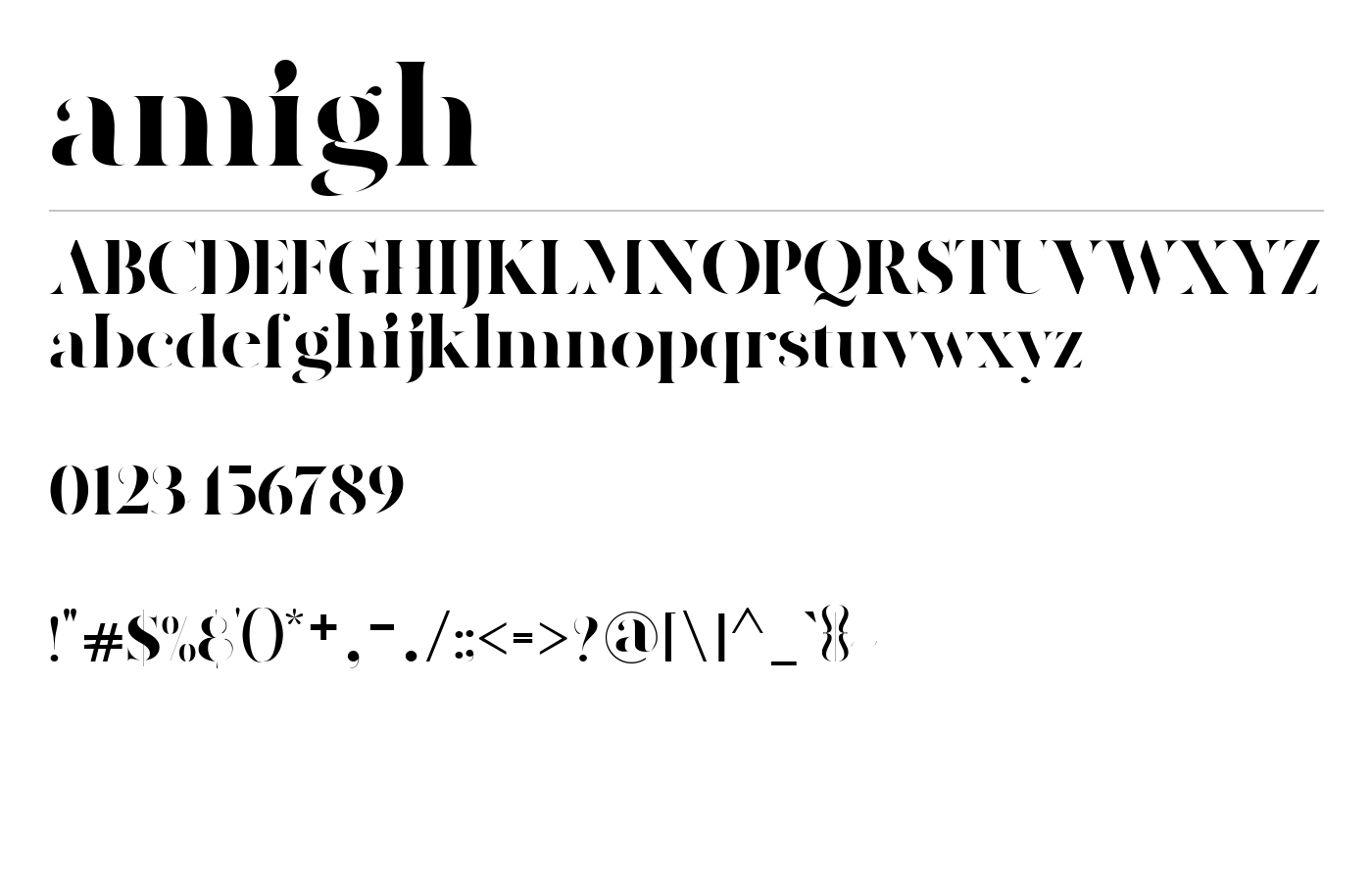
Amigh is a bold, high-contrast serif typeface with dramatic, stencil-like cutouts that give it a modern and artistic flair. Its sharp, elegant letterforms and distinct shapes make it ideal for striking headlines, logos, and editorial designs where a sophisticated yet contemporary look is desired. This font works especially well in fashion, luxury branding, and creative projects that benefit from a unique and stylish presence.
amigh Font
About amigh Font
| Designer | 177Studio |